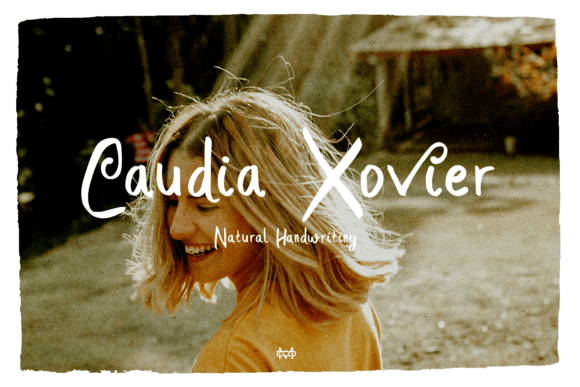
Unleash Your Creativity with Caudia Xovier Font
There’s nothing quite like the feeling of being in the zone, surrounded by blank canvases, endless possibilities, and the thrill of bringing your ideas to life. Whether you’re a seasoned designer or just starting out, those moments of pure creative bliss are what make all the hard work worth it. And what’s the secret to making those moments even more magical? The right font, of course!
Enter Caudia Xovier Font, a delightful display font that’s as playful as it is masterfully designed. With its uniquely handmade feel, this font is perfect for adding that special touch to any design project. Whether you’re working on a children’s book, a marketing campaign, or a social media post, Caudia Xovier Font is sure to elevate your creative ideas to new heights.
Caudia Xovier Font Key Features
- Font Family: Caudia Xovier Font is a script font designed to evoke a sense of elegance and sophistication.
- Unique Characteristics: Caudia Xovier Font features a unique, flowing script style with intricate details and subtle flourishes, making it ideal for creating eye-catching headlines and titles.
Caudia Xovier Font Review
Overall, I’d say the Caudia Xovier font has a lot of charm to it. Here are a few things that I think work well:
- ✨ Unique style: The font’s blend of elegant and playful elements makes it stand out from the crowd.
- ✨ High legibility: Despite its ornate features, the font is still easy to read, even at smaller font sizes.
- ✨ Great for creative projects: Caudia Xovier is perfect for anything that needs a touch of whimsy, from wedding invitations to children’s books.
That being said, there are a few limitations to consider:
- ⚠️ Limited font sizes: While the font looks great at medium to large sizes, it can become difficult to read at very small sizes.
- ⚠️ Not suitable for formal documents: The font’s playful style may not be suitable for formal documents or business reports.
Overall, I think the Caudia Xovier font is a great choice for designers who want to add some personality to their projects. While it may not be suitable for every project, it’s definitely worth considering for anything that needs a touch of elegance and whimsy.
The Caudia Xovier Font is ideal for:
- Marketing materials and advertisements
- Editorials and articles
- Infographics and presentations
Alternatives to Caudia Xovier Font
Ostrich Sans is a modern sans-serif font with a unique feel. It’s perfect for creating a professional and clean look, especially in corporate and tech-related projects. Compared to Caudia Xovier, Ostrich Sans has a more geometric and futuristic appearance, making it suitable for modern designs.
Lato is a clean and elegant sans-serif font that works well for various design projects. It’s particularly suitable for websites, mobile apps, and print materials that require a clear and readable text. Compared to Caudia Xovier, Lato has a more neutral and versatile appearance, making it a great choice for designs where you don’t want to draw attention away from the content.
Q: Is Caudia Xovier Font optimized for digital use?
Yes, Caudia Xovier Font is optimized for digital use, with careful attention paid to hinting and kerning to ensure clear and legible text at various screen resolutions and sizes. This ensures that the font looks great on both desktop and mobile devices.